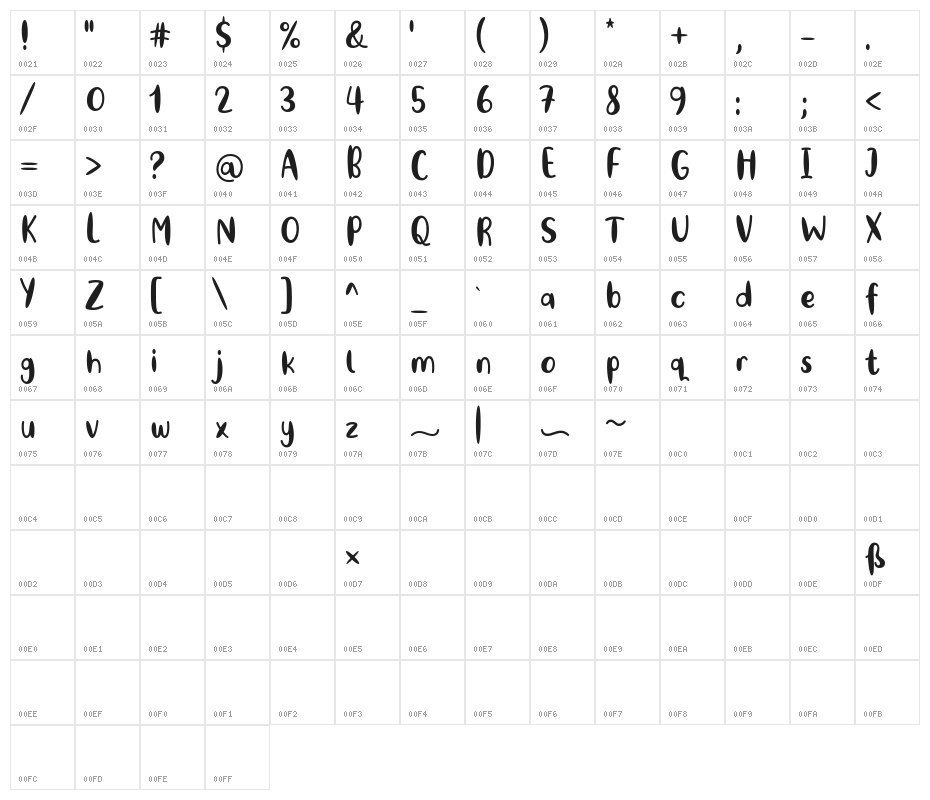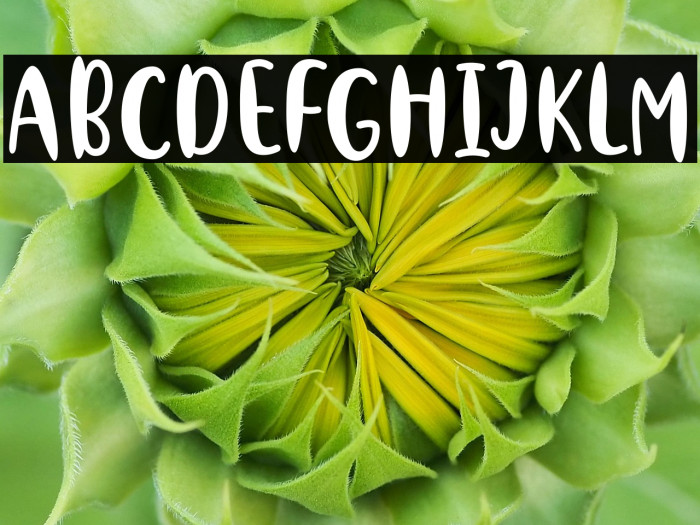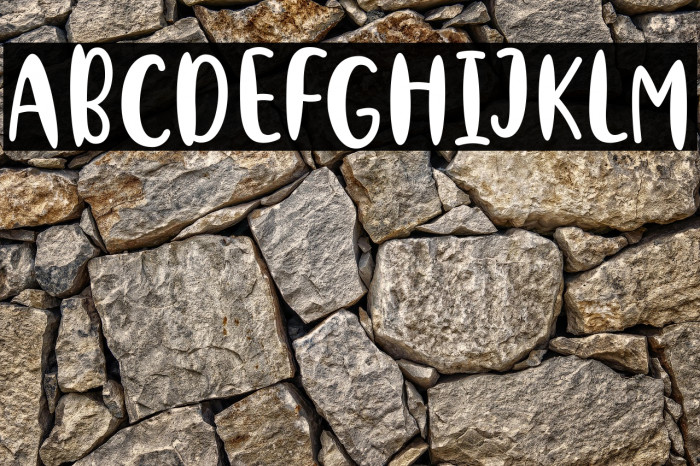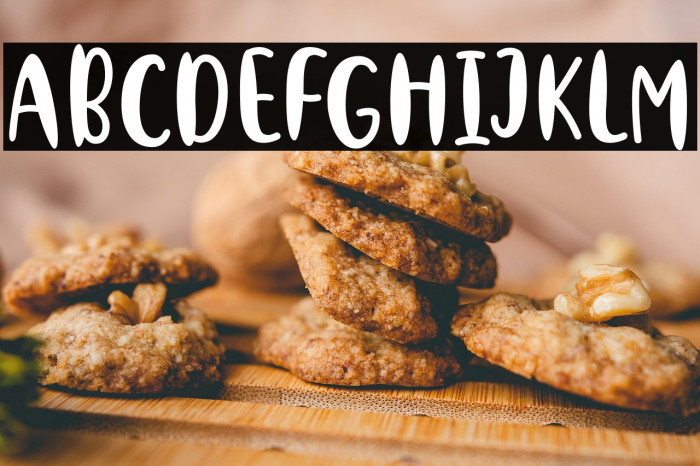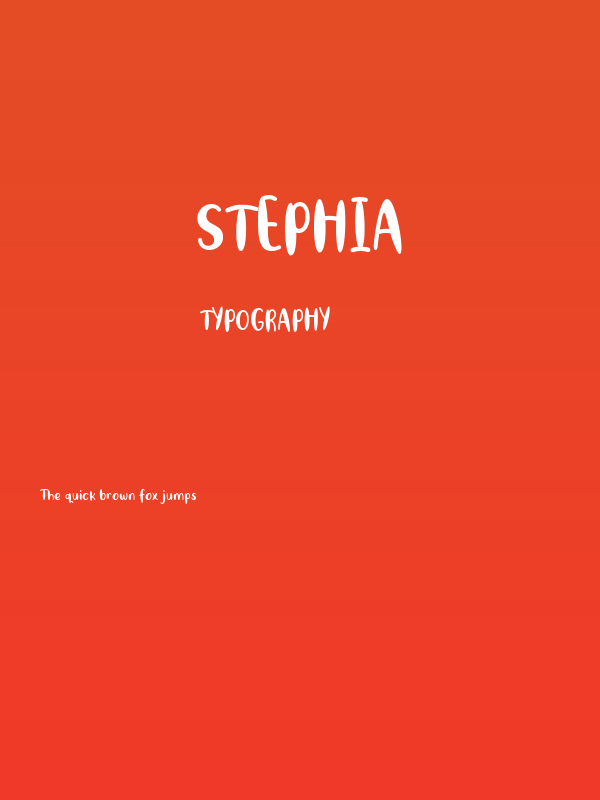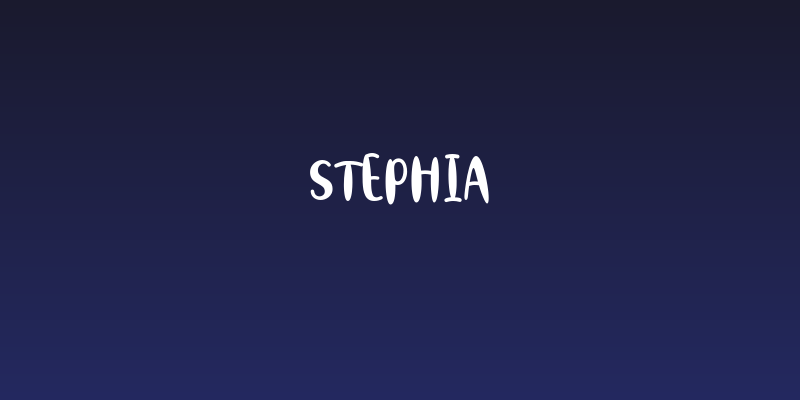
Stephia Font
Stephia Description
This playful and bold font features a handwritten style with a lively and energetic appearance. The letters are rounded and slightly irregular, giving a casual and friendly feel. The uppercase and lowercase characters maintain a consistent style, with a slight slant that adds to the dynamic look. The numbers and special characters are designed to match the overall aesthetic, making the font versatile for various uses. Its thick strokes and smooth curves make it highly legible, even at smaller sizes, while the unique character shapes add personality and charm.
| Overall Style | Playful |
| Use Case | Logos, Headlines, Posters |
| Proposed Projects | Ideal for children's books, playful branding, greeting cards, and social media graphics. |